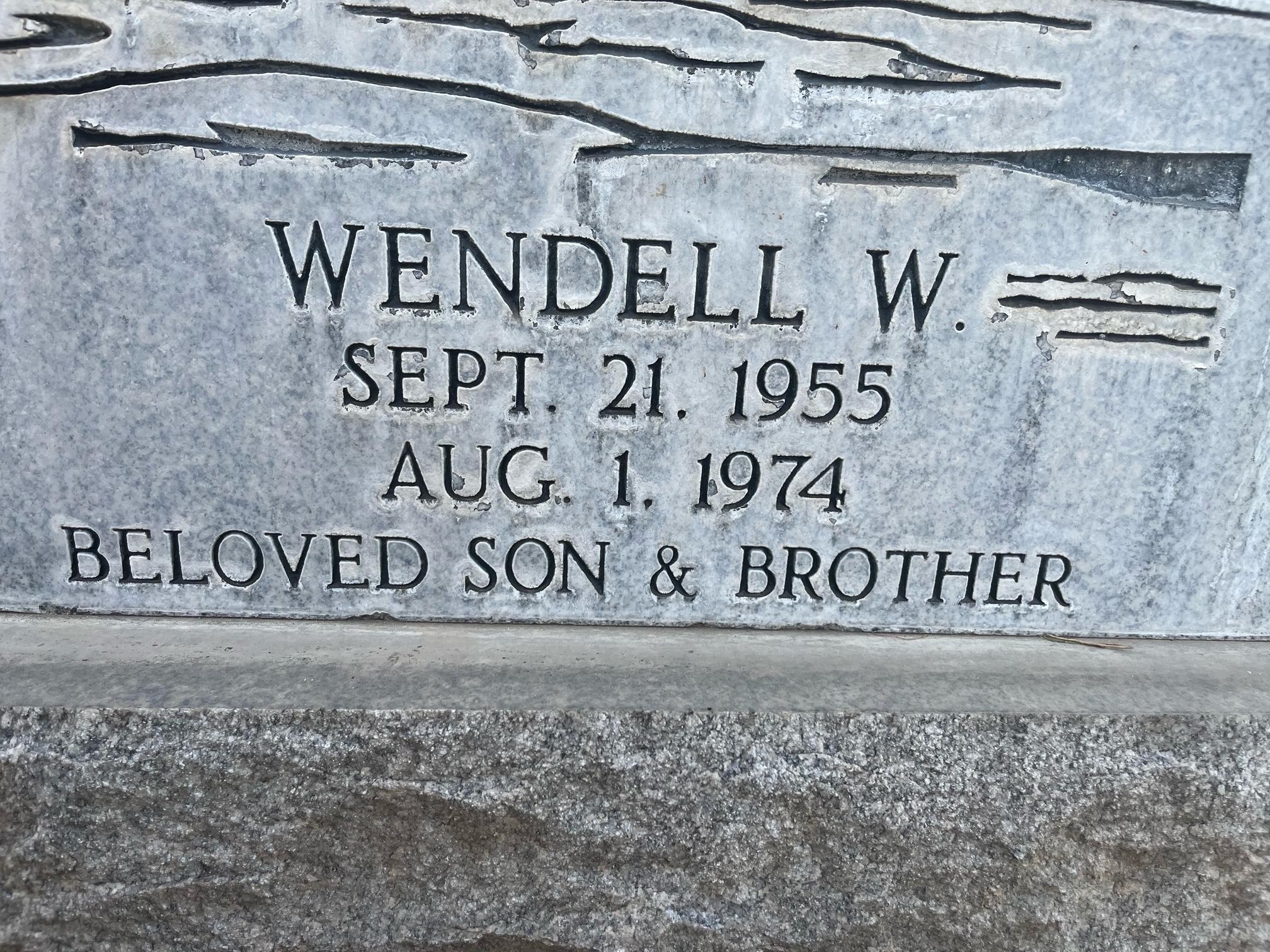
Cant figure out this date font either.
Hi Chris, this is the ScotchKut Double Outline at the medium sizes, with the second outline removed and a custom ampersand. Based on the date it is likely that the actual plastic letters were used and the ampersand drawn by hand, or it the memorial was made much later in the late 1980s or 1990s, it is possible that this was a digital version.